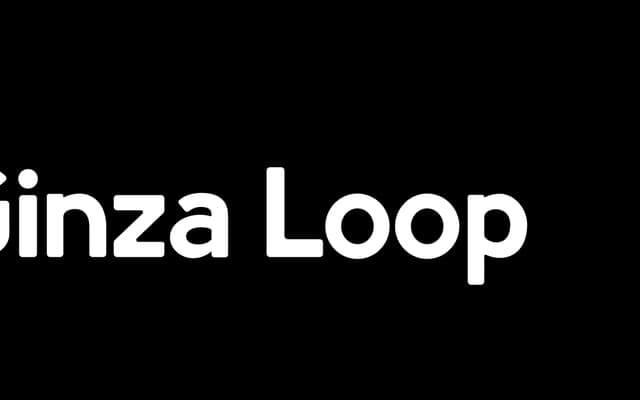
Ginza Loop
A rounded geometric sans built for high-visibility applications such as wayfinding, packaging and out-of-home work.
Soft, rounded terminals give this geometric sans a friendly legibility without tipping into novelty. The foundry positions it for practical, functional contexts where clarity at scale matters, including signage, packaging and advertising. Its simplicity is intentional rather than underdeveloped.
Described explicitly as a geometric sans serif with rounded characteristics, placing it squarely in the geometric sans subcategory with soft, rounded terminals.